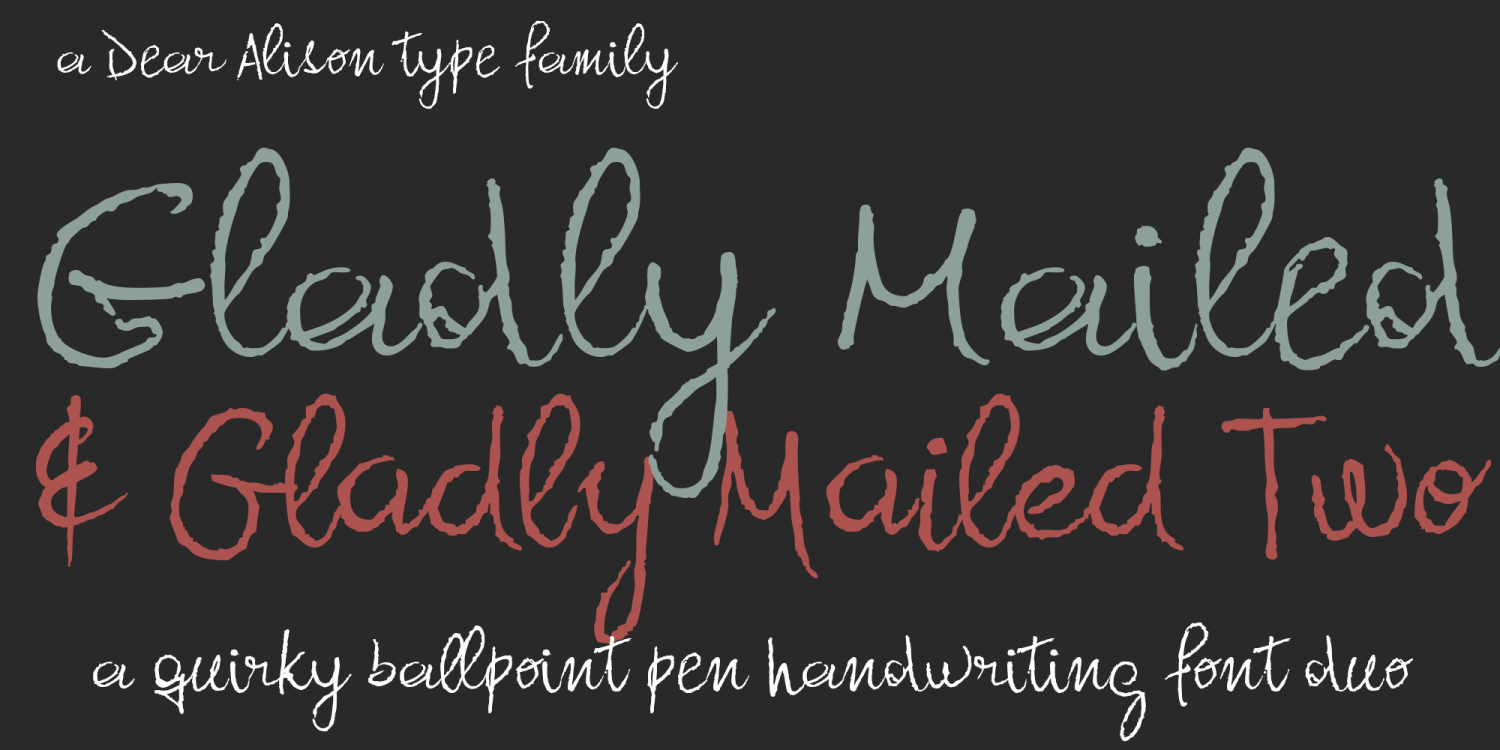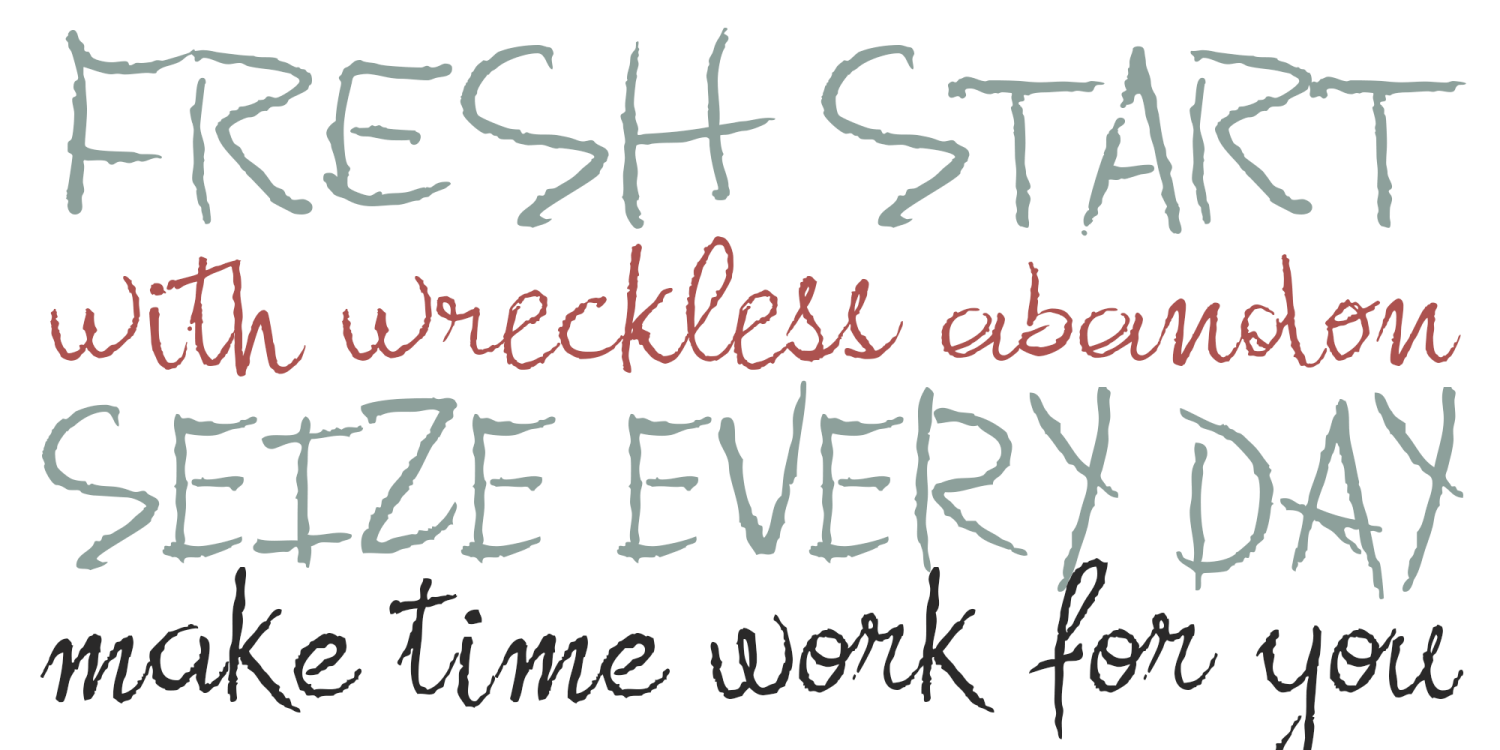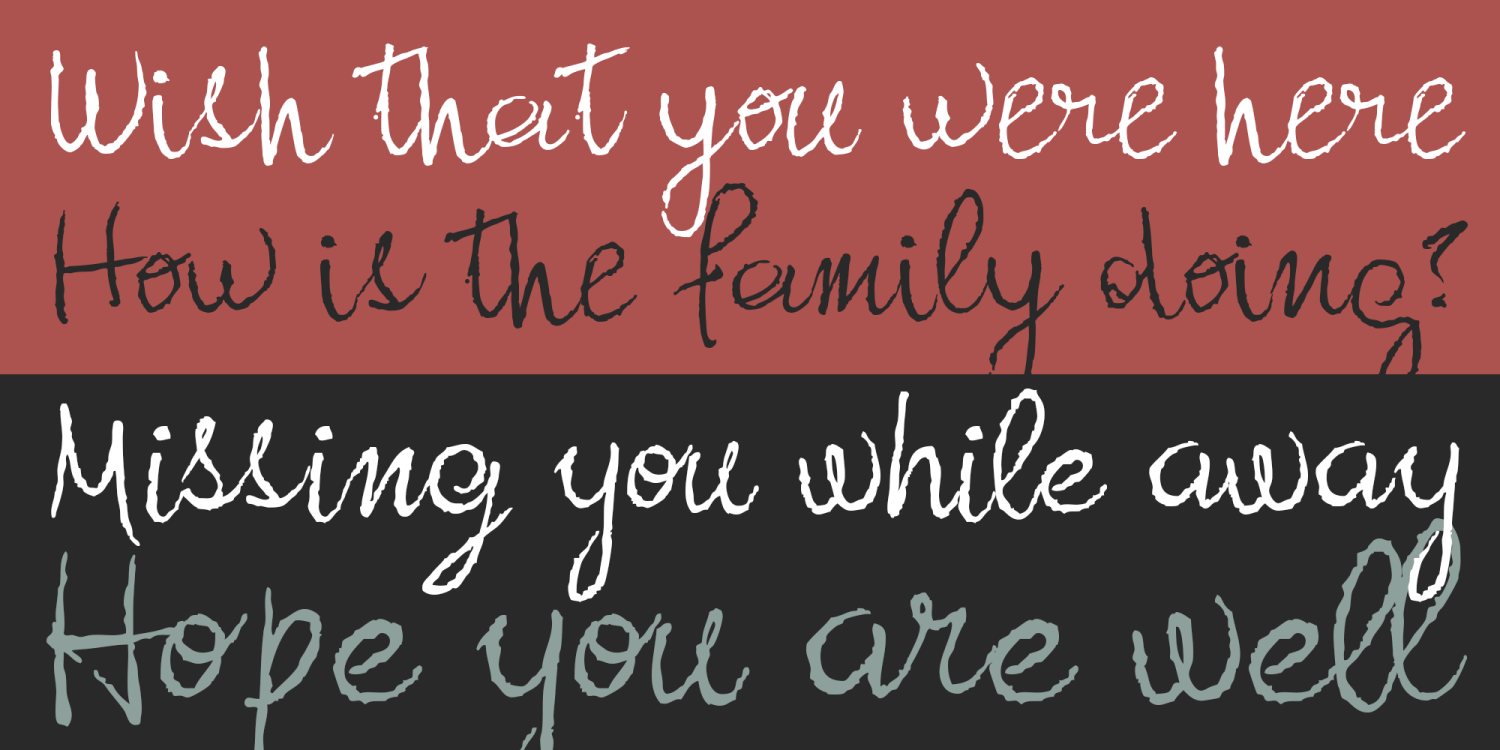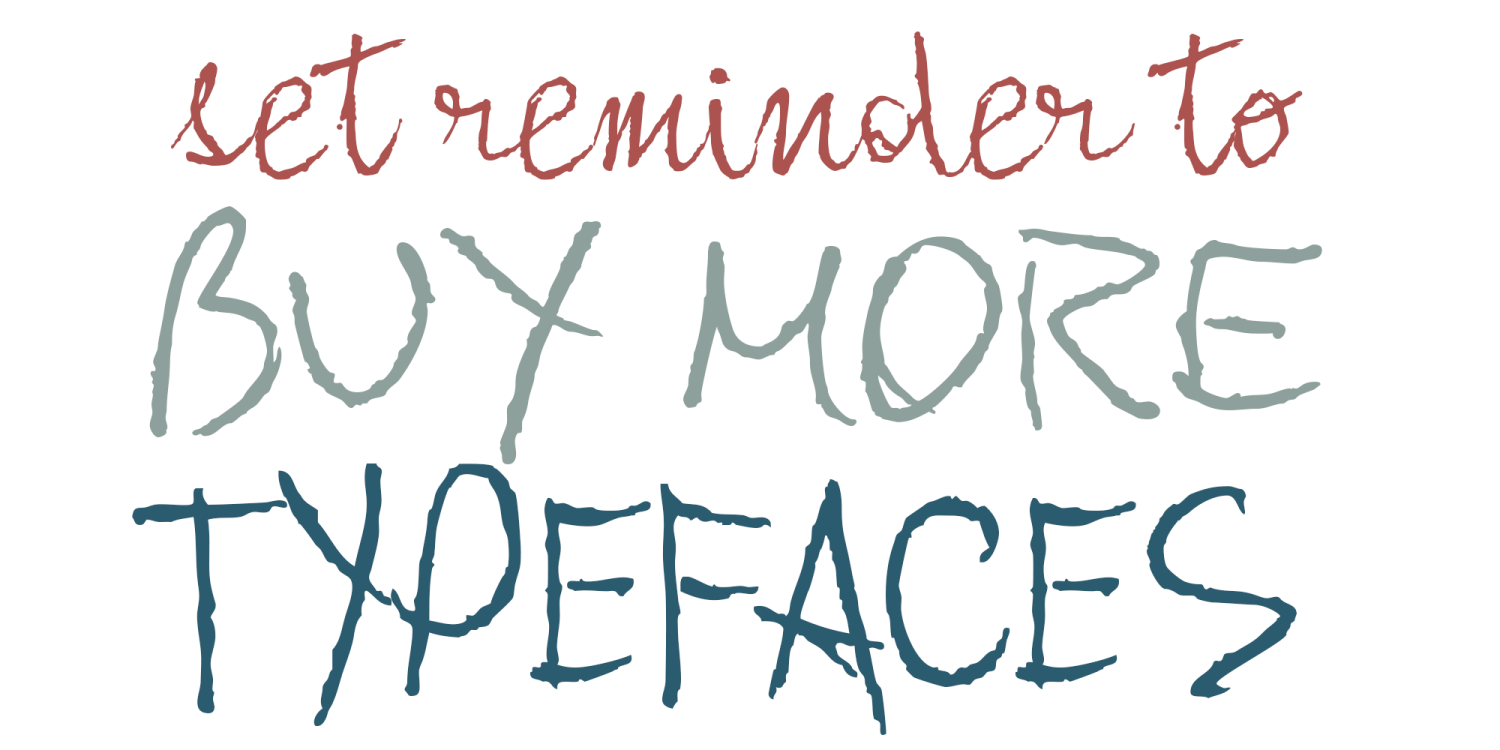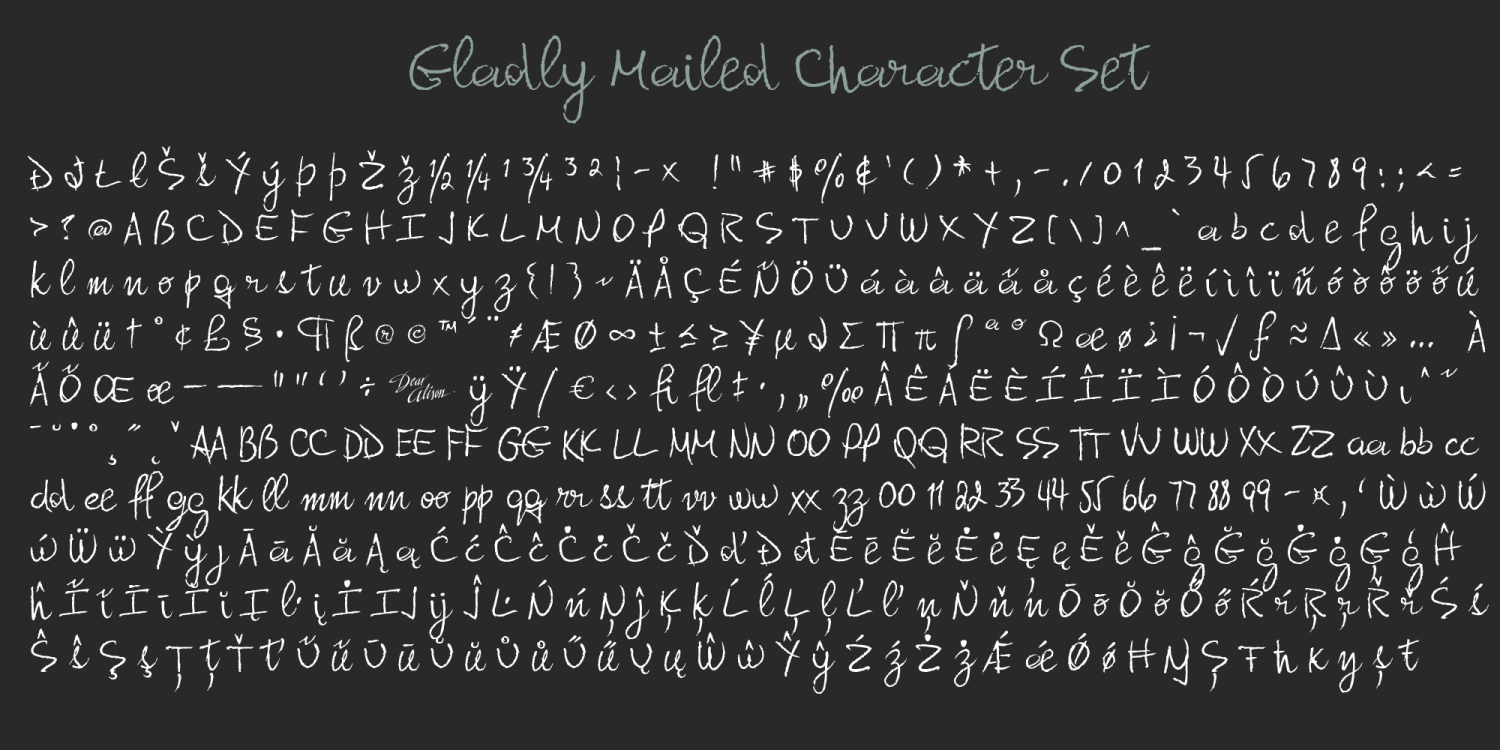
Gladly Mailed
Font Family by Dear Alison
Remember when you wrote little love notes in elementary school by a handwritten note and you broke up with that same someone by note and thought that was personal? Well, the handwritten note added that personal touch, but you know better now, right? Handwriting fonts can give any design a personalized "feel" to them, and Gladly Mailed does just that with all of the quirkiness of a skippy ballpoint pen. There's something about handwriting that is hard to ignore, even those marketing letters you get in the mail that look half typed and half hand written. Handwriting speaks to us on a deeper level. You'll find Gladly Mailed loaded with an extensive character set to swap out duplicate letters and create a more authentic handwritten feel, and included as a BONUS in this set is Gladly Mailed Two which swaps the alternate and original characters of Gladly Mailed, so that if you prefer the alternate lettering set to be the primary typed letters, you can easily have it either way. Speak to your audience on a deeper level by buying Gladly Mailed today!